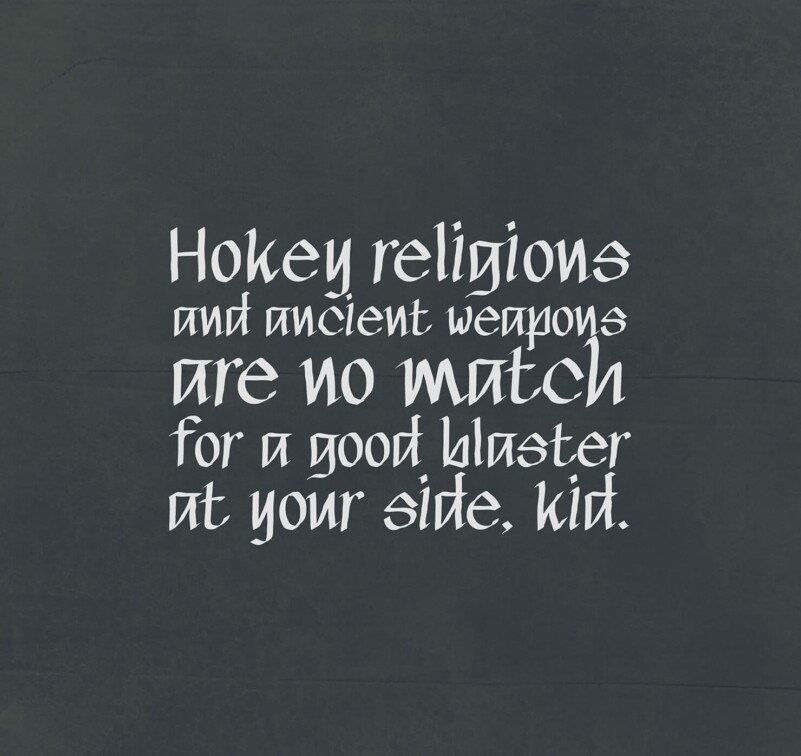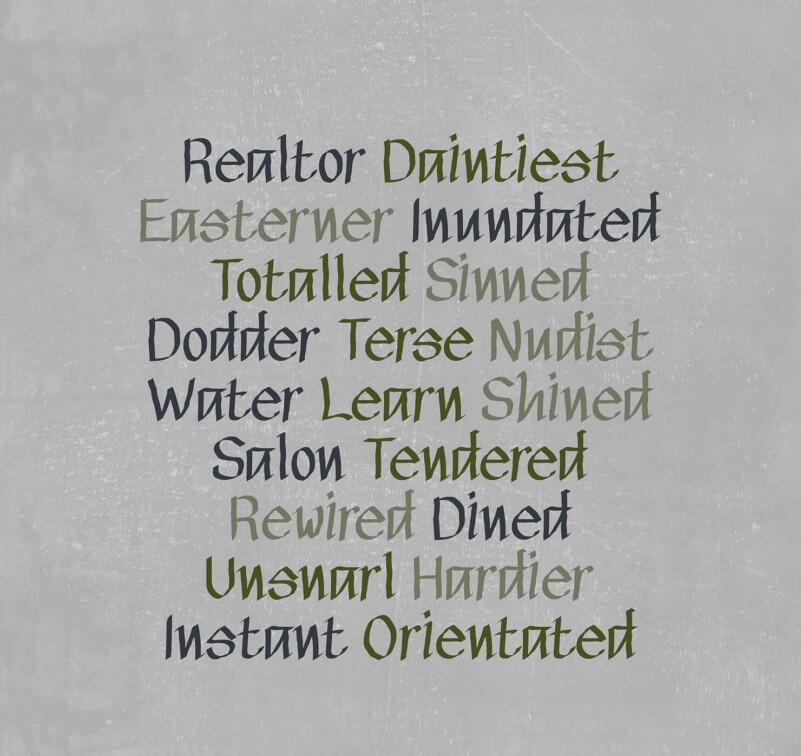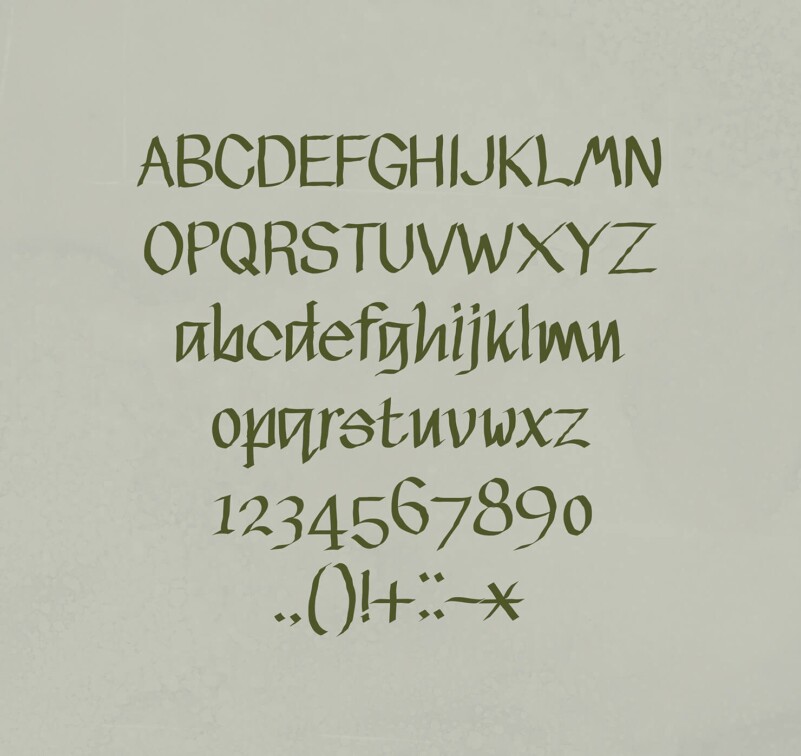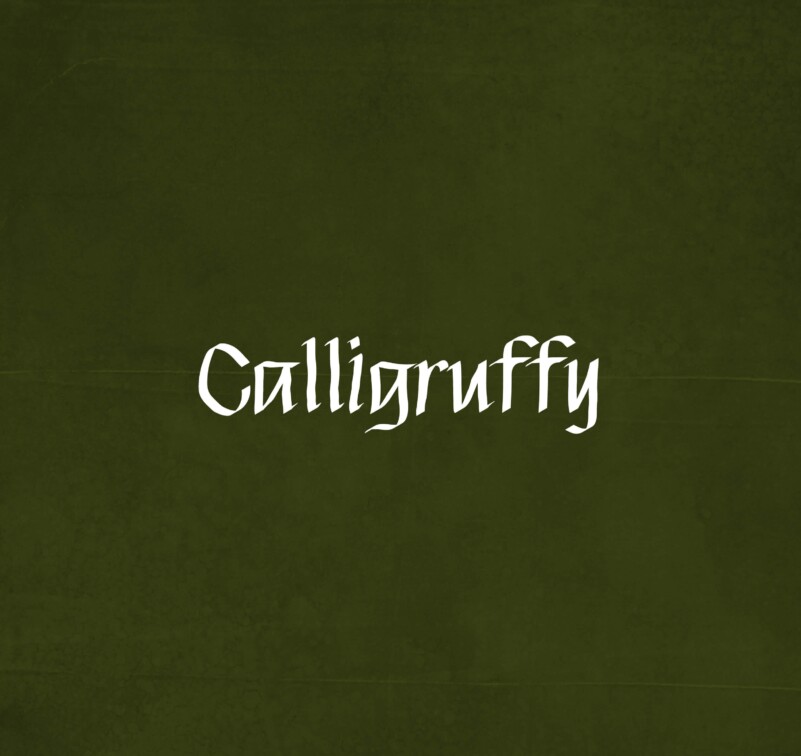
Calligruffy Font
Calligruffy Display Font is a distinct, highly detailed, and chic blackletter brush display font. It was made with the intention to be used for your personal branding. But, this works well for many applications. Everything from personal branding, logos, name tag, handwritten quotes, product packaging, merchandise, social media & greeting cards. photography signature, advertising could benefit from this collection of these bold signature fonts.